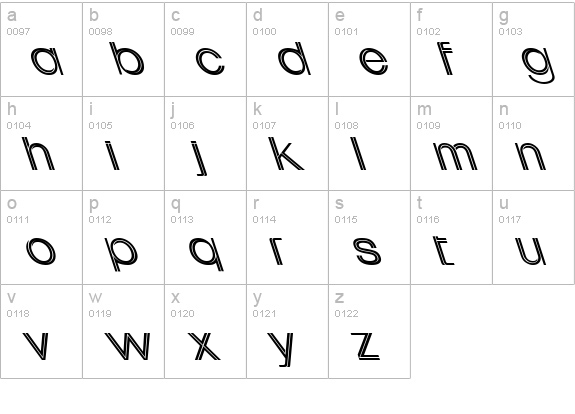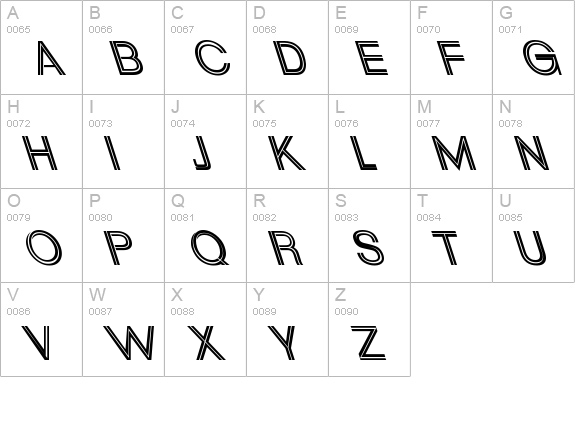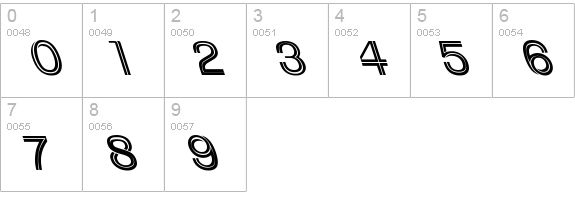
Uptight Lefti Font Details
Uptight Lefti font is the perfect choice for those seeking a unique and distinctive typeface that captures a sense of sophistication and elegance. Its sleek and refined design is bound to make a lasting impression on any project, whether it be a logo, branding, or marketing collateral. This font exudes an aura of professionalism and modernity, with its clean lines and sharp edges. Its geometric shapes lend a contemporary and stylish touch, making it ideal for both digital and print applications. Uptight Lefti font is versatile and adaptable, allowing it to seamlessly integrate into various design contexts. What sets Uptight Lefti font apart is its ability to strike a balance between being visually captivating and highly legible. Each character is meticulously crafted, ensuring clarity and readability even at small sizes. This makes it a reliable choice for any project that requires clear communication and impeccable attention to detail. The best part? Uptight Lefti font is available for free download at FontsMarket.com. This means that you can add this extraordinary font to your collection without any cost. FontsMarket.com offers a seamless and hassle-free downloading experience, allowing you to explore and access a vast array of fonts for all your design needs. Don't miss out on this opportunity to elevate your designs with Uptight Lefti font. Its modern elegance, versatility, and free availability make it a must-have for designers, creatives, and typographic enthusiasts alike. Download Uptight Lefti font today and embark on a captivating design journey that will leave a lasting impression on your audience.